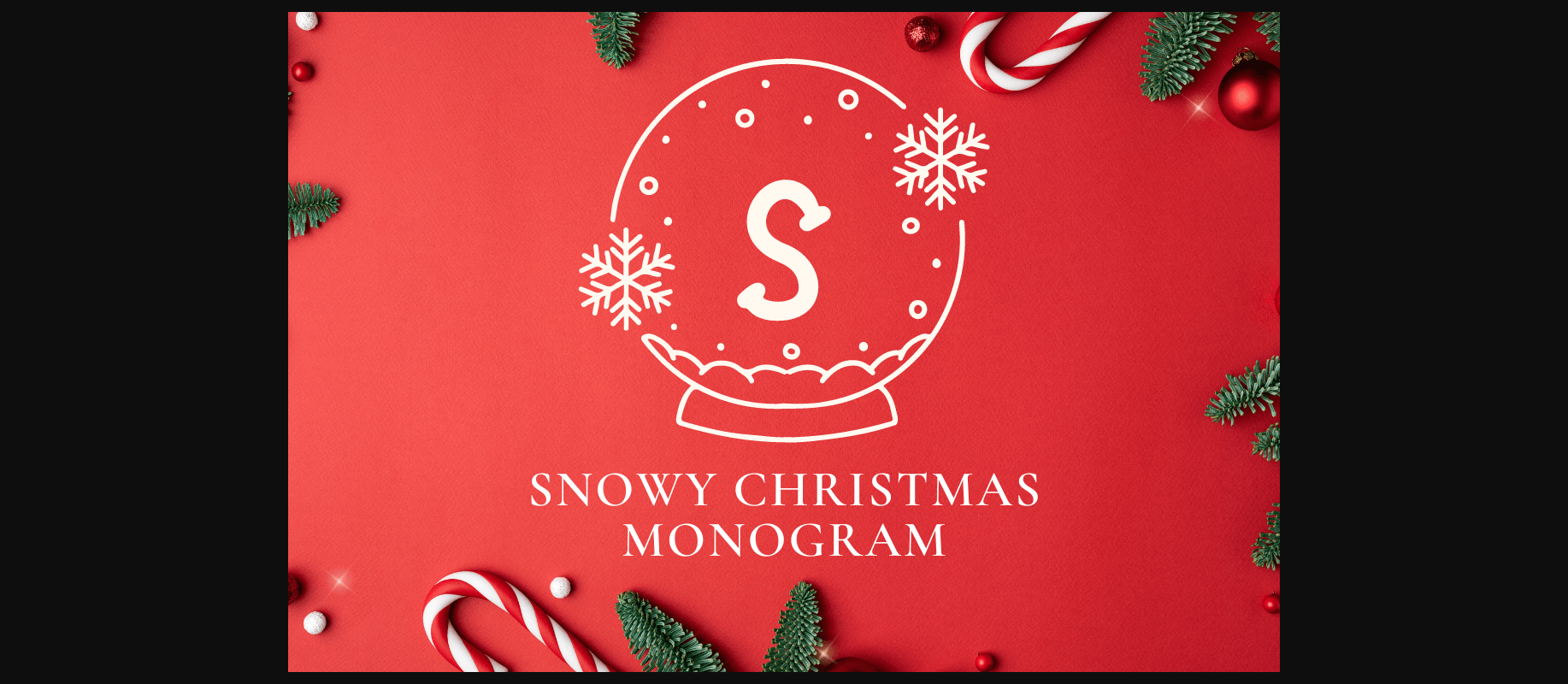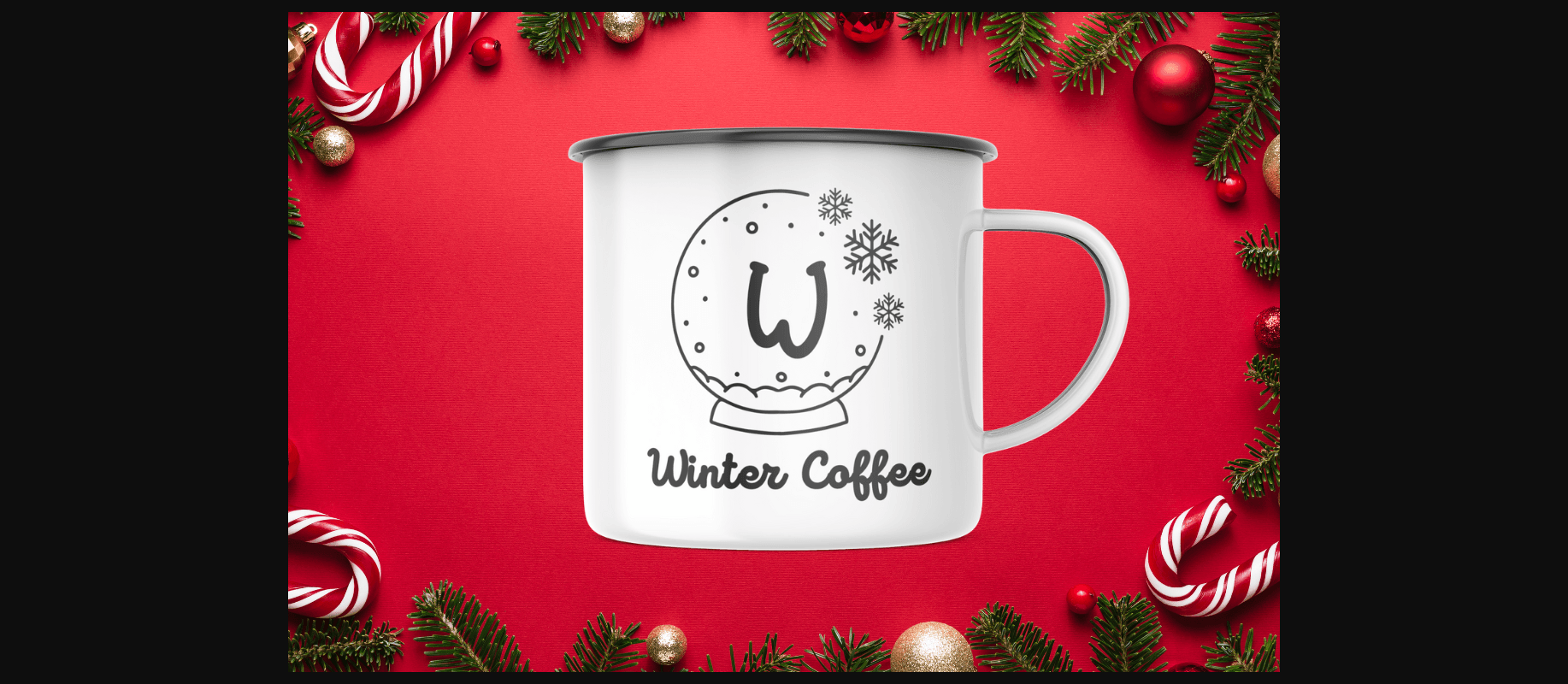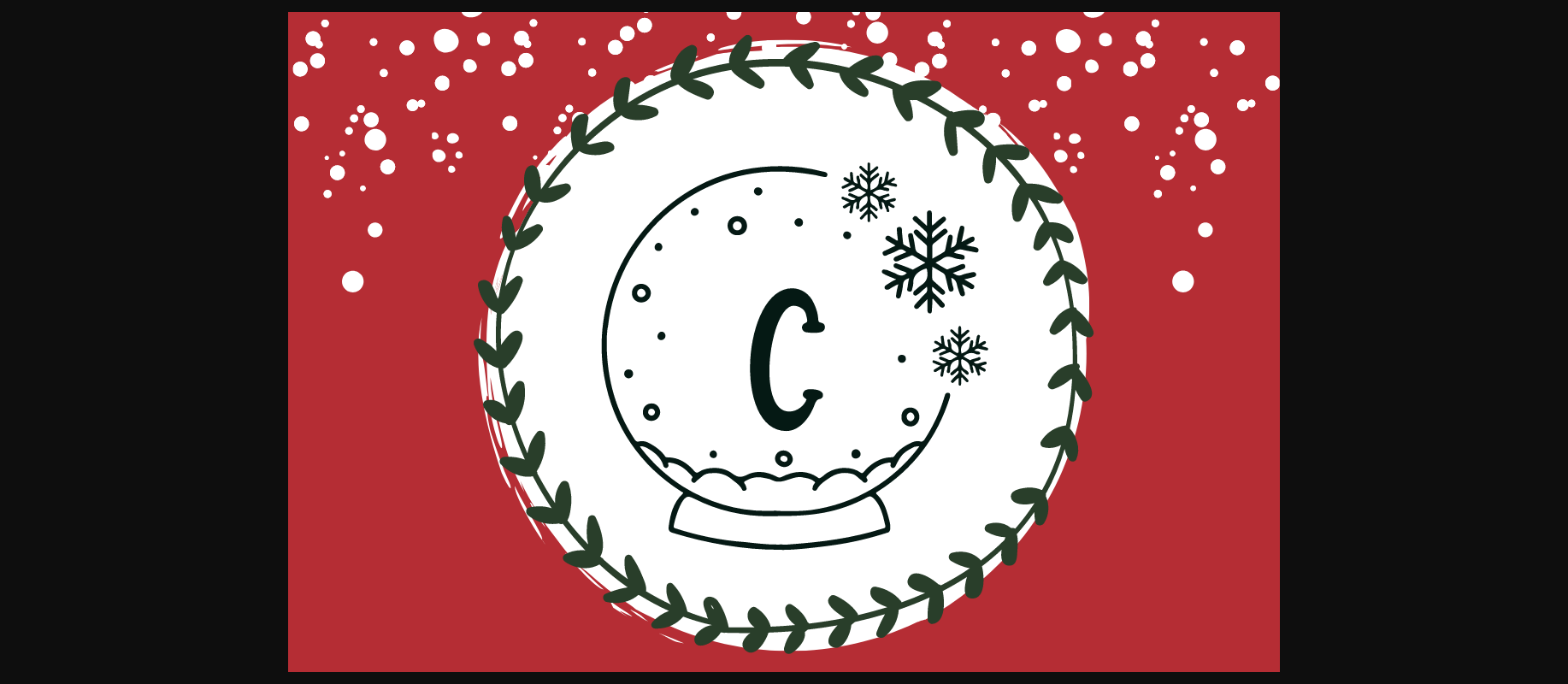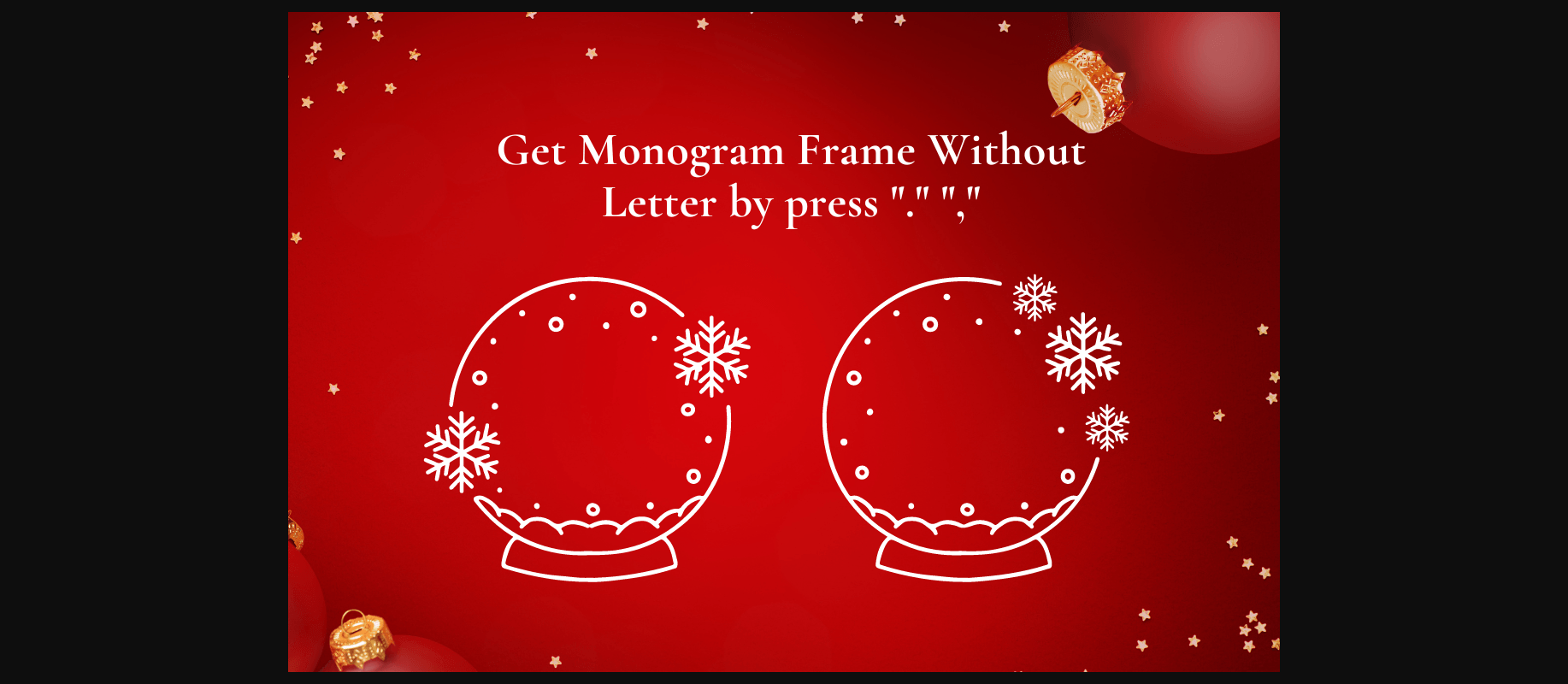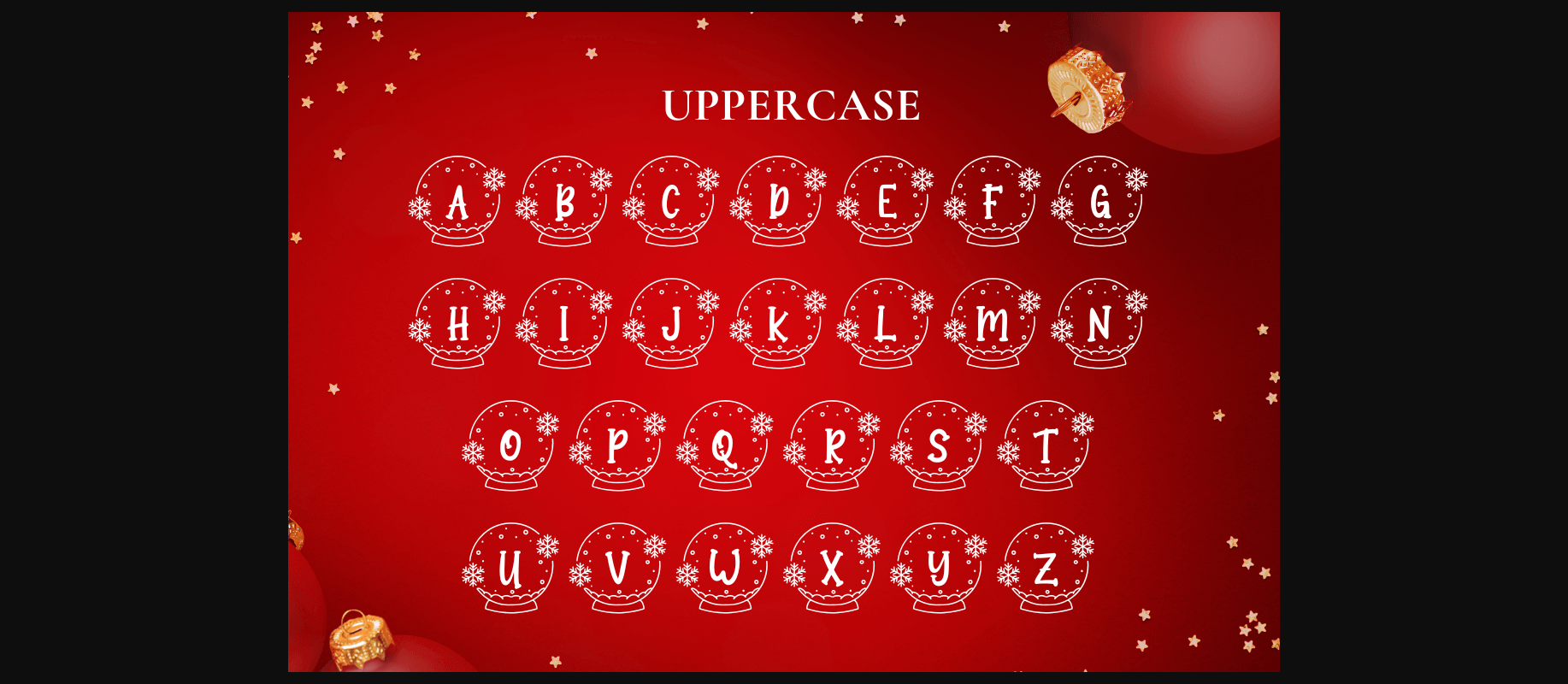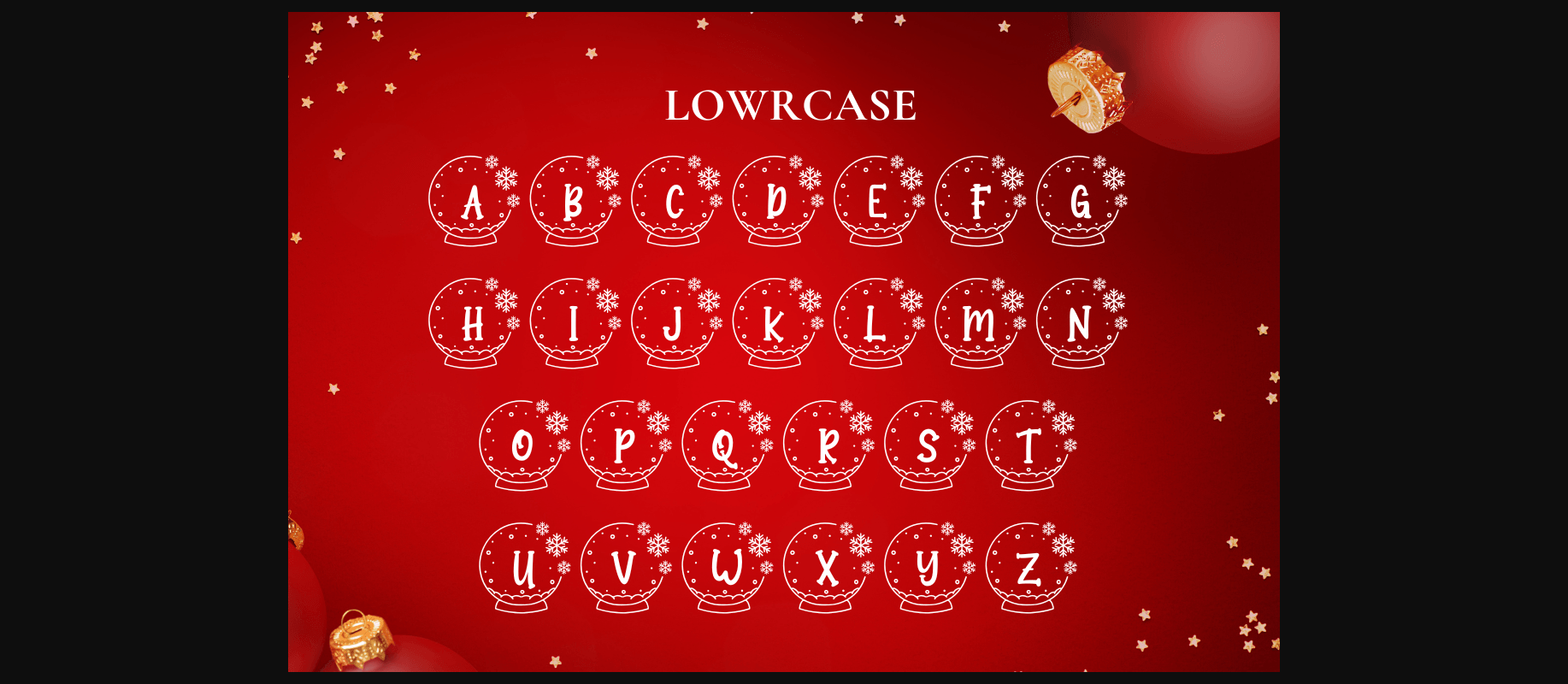
HomeDecorative FontsSnowy Christmas Monogram Font Decorative Fonts Snowy Christmas Monogram Font FacebookXPinterestWhatsApp 1 of 8 ... Snowy Christmas Monogram Font Poster 2... Snowy Christmas Monogram Font Poster 3... Snowy Christmas Monogram Font Poster 4... Snowy Christmas Monogram Font Poster 5... Snowy Christmas Monogram Font Poster 6... Snowy Christmas Monogram Font Poster 7... Snowy Christmas Monogram Font Poster 8... About Snowy Christmas Monogram Font Snowy Christmas is a cute and lovely decorative font. Its wintery and festive vibe makes it the perfect monogram font for all your Christmas or holiday-related projects. DOWNLOAD NOW People also explored Romantic Story Font Sonata Font Sestio Erosa Black Alliga Thor Font Nother Sans Font Serabut Font Jacque Font Lemonade Milk Font Lombok Beach Font 298 0 TagsSnowy Christmas Monogram Font Previous articleDino Mode FontNext articleHipstravaganza Stencil Font LEAVE A REPLY Cancel reply Comment: Please enter your comment! Name:* Please enter your name here Email:* You have entered an incorrect email address! Please enter your email address here Website: Save my name, email, and website in this browser for the next time I comment. Personal Use Free Fake Receipt Personal Use Free Read more about this font Hunters Personal Use Free Read more about this font BD Nokio Personal Use Free Read more about this font Theobald Personal Use Free Read more about this font BLOG How to Cut Any Font on Cricut: Convert a Font to SVG (Free) Turn any font into a clean SVG so it cuts crisp on Cricut - a quick 3-step workflow using a free font-to-SVG tool. Free Fonts Risk: Why Free Fonts Can Be Dangerous for Designers How to Install and Use Fonts on Windows, macOS, and Web Projects Where to Buy American Fonts Online in 2024